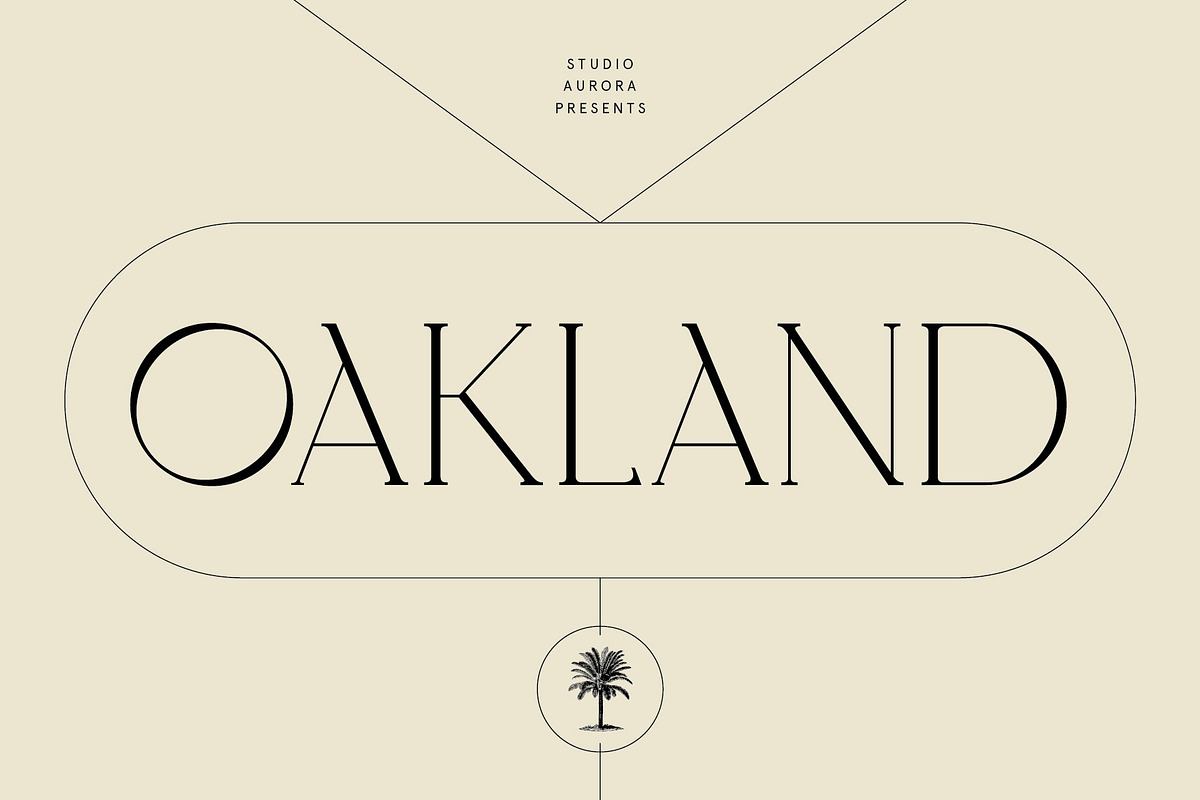
Oakland – Decorative Display Serif Font Free Download is a stunning choice for anyone looking to make a bold statement with their design. Featuring elegant serifs and sophisticated curves, this font is perfect for headlines, logos, invitations, and high-end branding projects. Its timeless aesthetic blends classic typography with a modern twist, making it versatile for both print and digital platforms.
Oakland offers a luxurious feel, ideal for fashion, editorial layouts, or upscale packaging. With careful attention to detail, each character in this font has been designed to exude style and refinement.